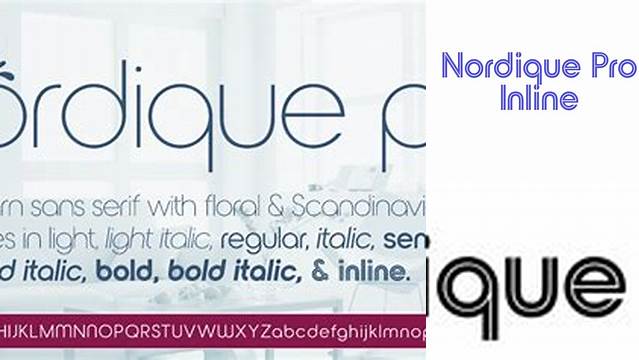
Nordique Pro Inline Font: An Overview
Nordique Pro Inline is a font that strikes a perfect balance between modern aesthetics and timeless elegance. Its clean lines and unique inline design make it incredibly versatile, suitable for a wide range of applications from branding to web design. This font stands out with its sophisticated appearance, making it an excellent choice for projects that require a touch of class and modernity. Whether you're designing a logo, creating marketing materials, or working on a website, Nordique Pro Inline can help you achieve a polished and professional look. One of the key features of Nordique Pro Inline is its readability. Despite its stylish design, the font remains highly legible, ensuring that your message is conveyed clearly and effectively. This is particularly important for body text and other content where clarity is paramount. Additionally, the font's inline detailing adds a unique visual element without sacrificing readability, making it a perfect blend of form and function. Nordique Pro Inline also offers a variety of weights and styles, providing you with the flexibility to adapt the font to different design needs. From light and airy to bold and impactful, you can choose the weight that best suits your project. This versatility extends to its applicability across different media, including print and digital formats. The font's clean lines and sharp details ensure that it looks great in any context, whether it's on a business card or a website header. Overall, Nordique Pro Inline is a font that offers both style and substance, making it a valuable addition to any designer's toolkit. Its blend of modern design and classic elegance ensures that it will remain a relevant choice for years to come. By understanding its features and capabilities, you can leverage this font to create stunning designs that leave a lasting impression.
The Appeal of Inline Fonts
Inline fonts, like Nordique Pro Inline, have a unique charm that sets them apart from other font styles. Their defining characteristic is the presence of lines or strokes within the characters themselves, creating an intriguing visual effect. This feature can add depth and dimension to your text, making it more eye-catching and memorable. The appeal of inline fonts lies in their ability to convey a sense of modernity and sophistication while maintaining readability. These fonts are often used in designs where a subtle yet impactful visual element is desired. For instance, inline fonts can be an excellent choice for logos, headlines, and branding materials, where the goal is to make a strong impression without overwhelming the viewer. The inline design adds a touch of elegance and creativity, making the text stand out from the background. Moreover, inline fonts are incredibly versatile. They can be used in both print and digital designs, and they work well in a variety of contexts. Whether you're designing a poster, a website, or a business card, an inline font can help you achieve a polished and professional look. The key is to use them judiciously and in a way that complements the overall design. One of the reasons inline fonts are so popular is their ability to create visual interest without sacrificing legibility. The lines within the characters add a subtle detail that catches the eye, but they don't interfere with the readability of the text. This makes inline fonts a practical choice for designs that require both style and clarity. In addition to their aesthetic appeal, inline fonts can also evoke certain emotions and associations. They often convey a sense of sophistication, creativity, and modernity. This makes them a great choice for brands that want to project a forward-thinking and innovative image. By understanding the unique qualities of inline fonts, you can effectively incorporate them into your designs to create visually stunning and impactful results. Nordique Pro Inline, with its clean lines and elegant design, perfectly exemplifies the appeal of this font style.
Alternatives to Nordique Pro Inline Font
If you're having trouble finding a free download of the exact Nordique Pro Inline font, or if you simply want to explore other options, there are several fantastic alternatives that offer a similar aesthetic. These fonts can provide the same level of elegance and sophistication, while also giving your designs a unique touch. Exploring alternatives is a great way to expand your font library and discover new favorites that might even better suit your project. One popular alternative to Nordique Pro Inline is the Montserrat font. Montserrat is a geometric sans-serif font that shares a similar clean and modern look. Its versatility makes it suitable for a wide range of applications, from headlines to body text. Montserrat is available in multiple weights and styles, giving you plenty of options to play with. Another excellent choice is Raleway, a sleek and elegant sans-serif font that’s known for its sophisticated appearance. Raleway features a slightly condensed design, which makes it perfect for creating impactful headlines and logos. Like Montserrat, Raleway is available in various weights, allowing you to customize the font to fit your specific needs. For those who prefer a more minimalist look, Open Sans is a great alternative. This font is known for its readability and clean design, making it a popular choice for web and mobile applications. Open Sans has a neutral and friendly appearance, which makes it suitable for a wide range of projects. If you're looking for a font with a bit more character, consider Bebas Neue. Bebas Neue is a tall and condensed sans-serif font that exudes modernity and confidence. It’s perfect for headlines, posters, and other designs where you want to make a bold statement. Bebas Neue has a distinctive look that can add a unique flair to your projects. Another alternative worth exploring is Lato, a sans-serif font that combines a sense of warmth and elegance. Lato is known for its smooth and balanced letterforms, which make it highly readable and visually appealing. This font is a great choice for both body text and display purposes. By exploring these alternatives, you can find a font that perfectly matches your design vision. Each of these fonts offers a unique take on the modern sans-serif aesthetic, providing you with plenty of options to create stunning designs.
Using Nordique Pro Inline in Your Designs
Once you've found your free download of Nordique Pro Inline or a suitable alternative, the next step is to effectively incorporate it into your designs. Knowing how to use a font correctly can make a huge difference in the overall impact of your project. Nordique Pro Inline, with its clean lines and modern aesthetic, is a versatile font that can be used in various design contexts. One of the most common uses for Nordique Pro Inline is in branding. Its elegant and sophisticated appearance makes it an excellent choice for logos, business cards, and other branding materials. When using it for a logo, consider pairing it with a complementary font for body text to create a balanced and cohesive look. A simple and readable font like Open Sans or Lato can work well as a secondary font. In website design, Nordique Pro Inline can be used for headings, subheadings, and navigation menus. Its clean and clear letterforms ensure readability, which is crucial for a positive user experience. When using it for web design, make sure to optimize the font for different screen sizes and devices. Using the correct font size and line height can greatly improve readability. For print design, Nordique Pro Inline can be used in brochures, posters, and flyers. Its modern appearance can help your designs stand out and capture attention. When using it for print, it’s important to ensure that the font is sharp and clear, especially at smaller sizes. Test prints can help you identify any issues with readability. Another effective way to use Nordique Pro Inline is in social media graphics. Its stylish design can make your posts and ads more visually appealing. When using it for social media, consider using contrasting colors and bold typography to grab the viewer's attention. Keep the text concise and easy to read, as social media users often scroll through content quickly. When using Nordique Pro Inline, it's important to consider the overall tone and style of your design. This font works well in modern, minimalist, and elegant designs. Avoid using it in projects that require a more traditional or playful aesthetic, as it may not be the best fit. By understanding how to effectively use Nordique Pro Inline, you can create designs that are both visually appealing and highly functional.
Best Font Pairings for Nordique Pro Inline
Choosing the right font pairing is crucial for creating a visually harmonious and effective design. While Nordique Pro Inline is a stunning font on its own, pairing it with a complementary font can elevate your design to the next level. The best font pairings create a balance between visual interest and readability, ensuring that your message is conveyed clearly and effectively. So, what are some fonts that pair well with Nordique Pro Inline? One excellent choice is Open Sans. Open Sans is a classic sans-serif font that is known for its clean and readable design. Its neutrality makes it a perfect complement to the more distinctive Nordique Pro Inline. You can use Open Sans for body text and other supporting elements, while using Nordique Pro Inline for headings and titles. Another fantastic pairing is with Lato. Lato is a sans-serif font that combines a sense of warmth and elegance. Its smooth and balanced letterforms make it highly readable, while its modern aesthetic complements Nordique Pro Inline beautifully. Lato can be used for body text, captions, and other secondary text elements. If you're looking for a font pairing that exudes sophistication, consider pairing Nordique Pro Inline with Montserrat. Montserrat is a geometric sans-serif font that shares a similar clean and modern look. This pairing can create a cohesive and stylish design, especially for branding materials and websites. For a more contrasting look, you can pair Nordique Pro Inline with a serif font like Merriweather. Merriweather is a highly readable serif font that adds a touch of classic elegance to your designs. Pairing a sans-serif font like Nordique Pro Inline with a serif font can create a visually interesting and balanced design. Another option is to pair Nordique Pro Inline with Roboto. Roboto is a modern sans-serif font that is widely used in digital designs. Its clean and geometric letterforms make it a great complement to Nordique Pro Inline, especially for web and mobile applications. When choosing a font pairing, it's important to consider the overall tone and style of your design. The goal is to create a balance between visual interest and readability, ensuring that your message is conveyed effectively. By experimenting with different font pairings, you can find the perfect combination that brings your design to life.
Designing Logos with Nordique Pro Inline
Designing a logo is a crucial part of branding, and the font you choose plays a significant role in conveying your brand’s message and identity. Nordique Pro Inline, with its modern and elegant design, is an excellent choice for creating logos that stand out. Its unique inline detailing adds a touch of sophistication, making it perfect for businesses that want to project a stylish and contemporary image. When designing a logo with Nordique Pro Inline, it’s important to consider the overall aesthetic and message you want to convey. This font works well for businesses in industries such as fashion, technology, and design, where a modern and sophisticated look is desired. However, it can also be used in other industries if paired with the right design elements and colors. One of the first steps in designing a logo is to consider the font weight and style. Nordique Pro Inline offers a clean and legible design, but you may want to experiment with different weights to achieve the desired impact. A bolder weight can convey strength and confidence, while a lighter weight can create a more delicate and refined look. You should also think about the font size and spacing. The size of the font should be appropriate for the application, whether it’s for a website header or a business card. Proper spacing between letters and words is crucial for readability and visual appeal. Kerning and tracking adjustments can help you fine-tune the spacing for a polished look. Color is another important consideration when designing a logo. The colors you choose should align with your brand’s personality and values. Nordique Pro Inline pairs well with a variety of colors, from classic neutrals to bold and vibrant hues. Consider using a color palette that complements the font’s modern aesthetic. In addition to the font itself, you should also think about the overall design elements of your logo. A simple and minimalist design can often be the most effective, especially when using a stylish font like Nordique Pro Inline. Consider incorporating a simple icon or symbol that represents your brand’s mission or values. It’s also a good idea to create variations of your logo for different applications. For example, you may need a version for print, a version for web, and a version for social media. Make sure your logo looks good in both color and black and white. By carefully considering these elements, you can design a logo with Nordique Pro Inline that effectively communicates your brand’s message and identity.
Nordique Pro Inline for Web Design
In the realm of web design, the choice of font can significantly impact the user experience and the overall aesthetic of a website. Nordique Pro Inline, with its sleek and modern appearance, is an excellent option for web designers looking to add a touch of elegance and sophistication to their projects. Its clean lines and unique inline design make it versatile enough to be used in various web design contexts, from headings and navigation menus to body text and call-to-action buttons. When using Nordique Pro Inline for web design, it’s important to consider readability. While the font is stylish and visually appealing, it’s crucial to ensure that the text remains legible, especially for body text. Choosing the right font size and line height can greatly improve readability. A good rule of thumb is to use a larger font size for headings and a slightly smaller size for body text. Line height, also known as leading, should be adjusted to create sufficient space between lines, making the text easier to read. Another important factor to consider is font loading and performance. Using too many fonts or fonts that are not optimized for the web can slow down your website's loading speed, which can negatively impact the user experience. To avoid this issue, use web-safe fonts whenever possible and optimize your font files for faster loading times. Services like Google Fonts offer a wide range of web-safe fonts that are optimized for performance. When using Nordique Pro Inline for headings, consider pairing it with a more readable font for body text, such as Open Sans or Lato. This combination can create a balanced and visually appealing design. Using contrasting font styles can also add visual interest and hierarchy to your content. In addition to font pairings, color plays a crucial role in web design. The colors you choose should complement the font and enhance the overall aesthetic of your website. Nordique Pro Inline pairs well with a variety of colors, from classic neutrals to bold and vibrant hues. Consider using a color palette that aligns with your brand’s personality and values. Responsiveness is another key consideration when using Nordique Pro Inline for web design. Your website should look good and function properly on all devices, from desktops to smartphones. Make sure to test your font choices on different screen sizes to ensure readability and visual appeal. By carefully considering these factors, you can effectively use Nordique Pro Inline to create a website that is both visually stunning and user-friendly.
Creating Marketing Materials with Nordique Pro Inline
Marketing materials play a pivotal role in promoting your brand and attracting customers. The design of these materials, including the choice of font, can significantly impact their effectiveness. Nordique Pro Inline, with its modern and stylish appearance, is an excellent choice for creating marketing materials that capture attention and convey a sense of sophistication. Whether you're designing brochures, flyers, posters, or social media graphics, this font can help you create a polished and professional look. When using Nordique Pro Inline for marketing materials, it’s important to consider the overall message and tone you want to convey. The font’s clean lines and elegant design make it suitable for a wide range of industries and applications, from fashion and beauty to technology and design. However, it’s crucial to use it strategically to ensure that it aligns with your brand’s personality and values. One of the first steps in designing marketing materials is to choose the right font size and weight. For headlines and titles, you may want to use a larger font size and a bolder weight to grab the viewer's attention. For body text, it’s important to choose a font size and weight that ensure readability. Using too small of a font size can make the text difficult to read, while using too large of a font size can make the design look cluttered. Font pairing is another important consideration. While Nordique Pro Inline is a beautiful font on its own, pairing it with a complementary font can enhance the overall design. Consider using a more readable font, such as Open Sans or Lato, for body text and Nordique Pro Inline for headlines and titles. This combination can create a balanced and visually appealing look. Color plays a crucial role in marketing materials. The colors you choose should align with your brand’s identity and evoke the desired emotions. Nordique Pro Inline pairs well with a variety of colors, from classic neutrals to bold and vibrant hues. Consider using a color palette that complements the font and enhances the overall design. In addition to font and color choices, the layout and composition of your marketing materials are important. Use white space effectively to create a clean and uncluttered design. Make sure your message is clear and concise, and use strong visuals to capture attention. For social media graphics, consider using bold typography and contrasting colors to stand out in the feed. Keep the text brief and easy to read, as social media users often scroll through content quickly. By carefully considering these elements, you can create marketing materials with Nordique Pro Inline that effectively promote your brand and attract customers.